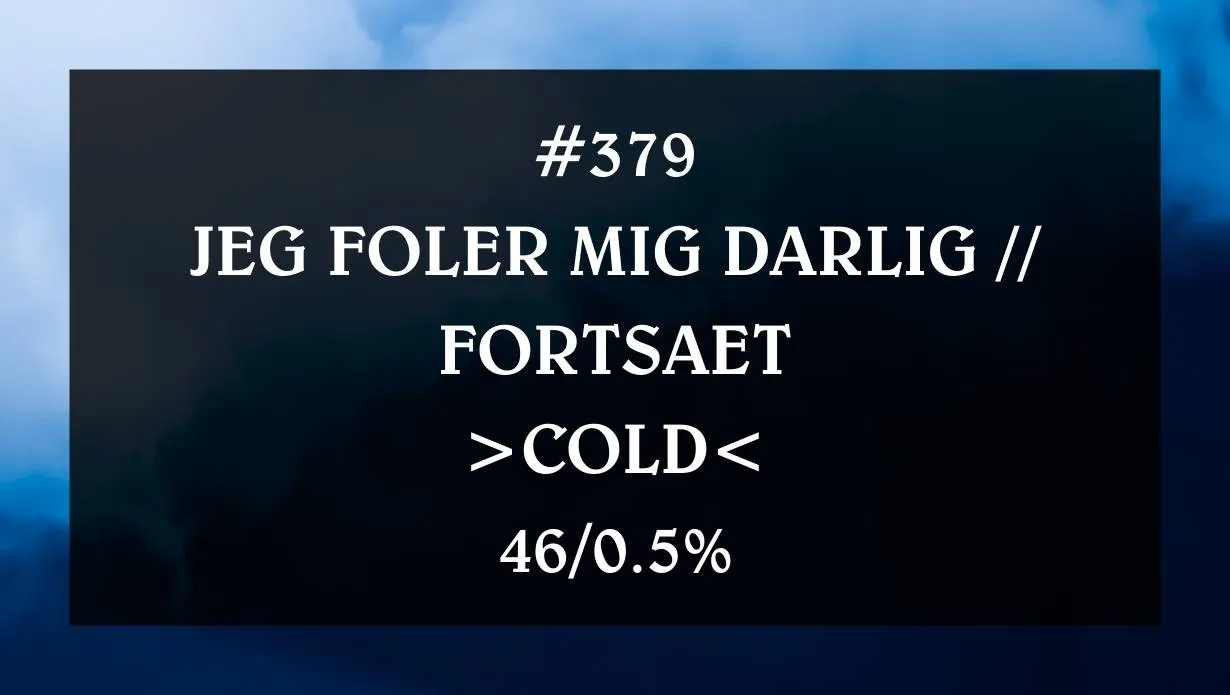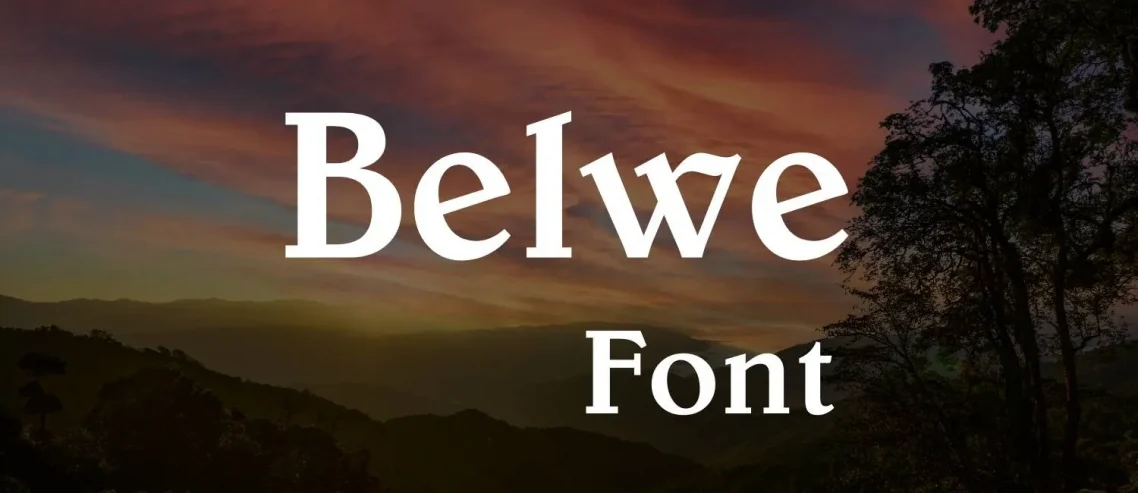
Belwe Font is a serif typeface created by German type designer Georg Belwe in 1922. The font is named after him. It has a unique design that makes it one of the most popular fonts used in Germany and other parts of Europe.
Belwe typeface was created with the intention of being easy to read and having a clean appearance. The font is perfect for any situation where readability is important, such as in business documents or on road signs. This Font is also a popular choice for tattoos, due to its simple design.
This Font is available in a variety of weights and styles, including light, regular, bold, and black. It is also available in both italic and oblique versions. The font supports a wide range of languages, including Latin, Cyrillic, and Greek.
Name | Belwe Font |
Designer | Georg Belwe |
Style | Serif |
Usage
Belwe Font is a great choice for any situation where readability is important. It is perfect for business documents, road signs, and tattoos. The font is also available in a variety of weights and styles, making it a versatile choice for any project.
Belwe is a versatile typeface that can be used for a variety of purposes. It is perfect for any situation where readability is important. The simple design of the font makes it easy to read, even from a distance. This Font is also available in a variety of weights and styles, making it a versatile choice for any project.
You can create effective designs by using this versatile font. The simple design of the font makes it easy to read, even from a distance. Belwe Font is also available in a variety of weights and styles, making it a versatile choice for any project.
Designer
This font is manufactured by a very creative typeface maker named Georg Belwe. This typeface designer is very popular because it designed many typefaces but this typeface gained tremendous popularity.
Is Belwe font a Monospace font?
No, This font is not a monospace typeface. Monospace fonts are fonts where every character is the same width, and this font is not designed to be used as monospace font.
Where is Belwe font used?
This font is used in many different places. It is perfect for business documents, road signs, and tattoos.
Is Belwe good for body text?
Yes, Belwe Font is a good choice for body text. The simple design of the font makes it easy to read, even from a distance.